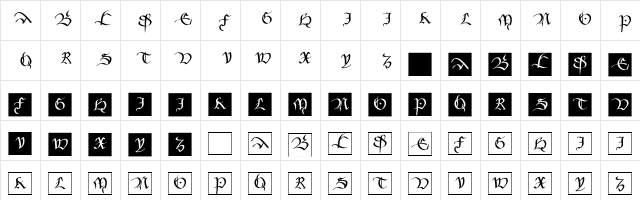
MKancellerescaCaps Regular Font Preview
MKancellerescaCaps Regular
Design Context for MKancellerescaCaps Typeface
MKancellerescaCaps is a composed and adaptable typeface that performs quietly and consistently across a wide range of design contexts.